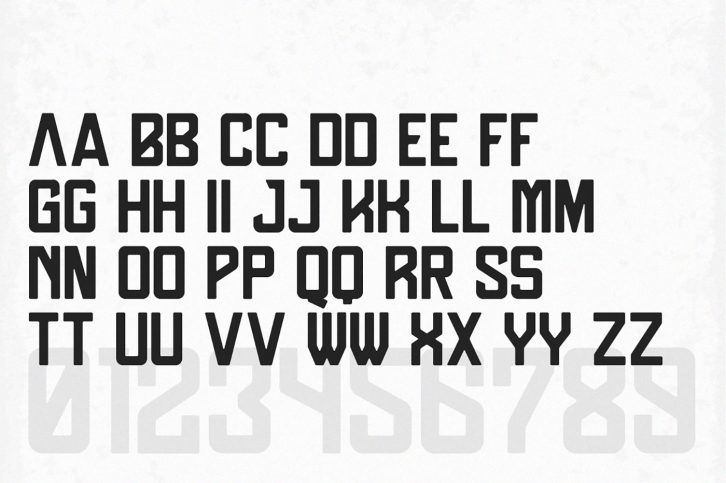
Django is an amazingly appealing retro font, one that combines a robust weight with a clean san serif appeal. Ideal for a large number of retro inspired designs, but easily adaptable to on trend concepts.